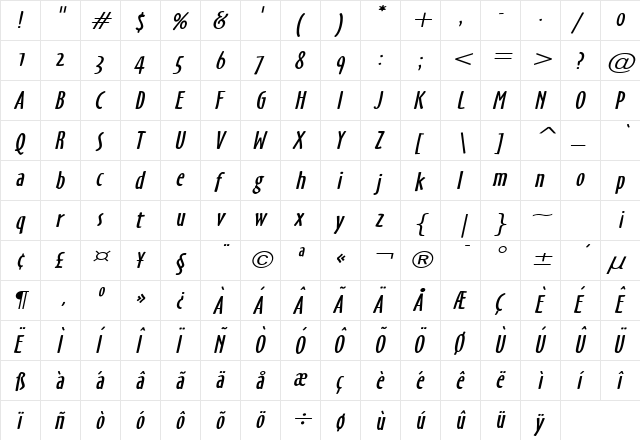
Hobby Wide Italic
Design Context for Hobby Wide Typeface
Hobby Wide offers clean, dependable letterforms without strong stylistic allegiance, making it a practical choice for designers who need flexibility. The slanted form adds forward momentum and visual energy.
Pro Tip: Use Hobby Wide for emphasis, pull quotes, and subheadings where its slanted energy can add rhythm to the layout.